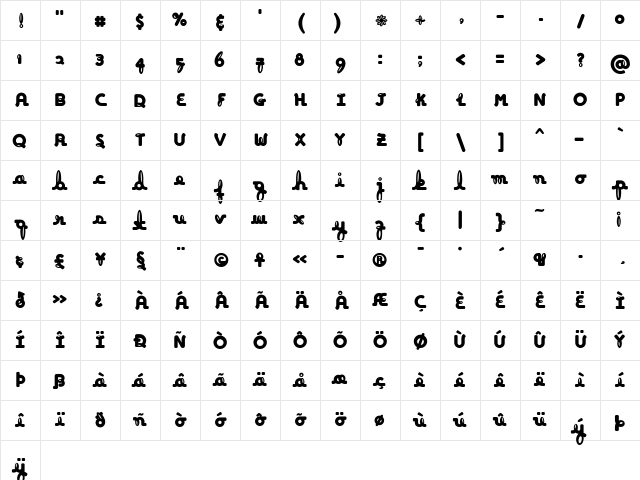
Inkling Regular Free Font
Inkling Regular
Design Context for Inkling
Inkling is a composed and adaptable typeface that performs quietly and consistently across a wide range of design contexts.